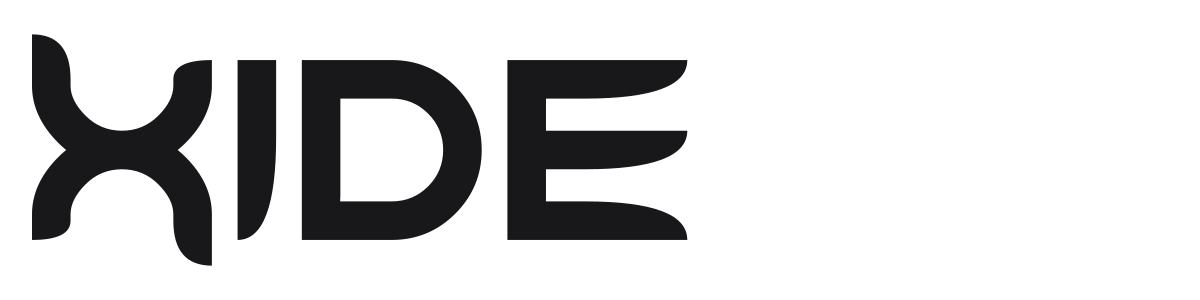
Xide
Xide is a bold geometric sans with a sci-fi personality, built on wide, heavy strokes interrupted by sharp angular notches and cutouts. The tension between smooth curves and sudden geometric incisions gives it a mechanical, almost industrial edge that reads instantly at large sizes. It works well for gaming titles, tech branding, and anywhere that needs a futuristic punch.